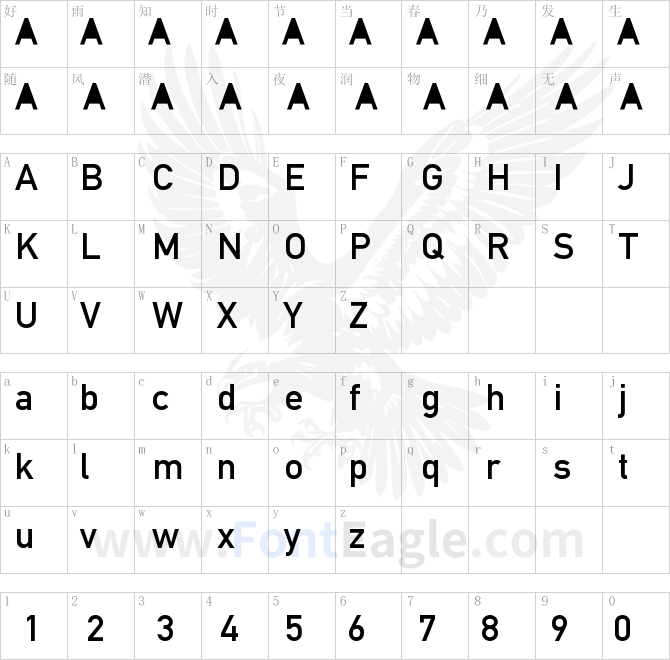
- Font name:DIN 1451 Mittelschrift
- Font Subfamily ID:DIN 1451 Mittelschrift
- Font Full Name:DIN 1451 Mittelschrift
DIN-1451-Mittelschrift is a great font, widely used in graphic design, single-page menu design, poster design and other fields, and is deeply loved by designers.DIN-1451-Mittelschrift download.